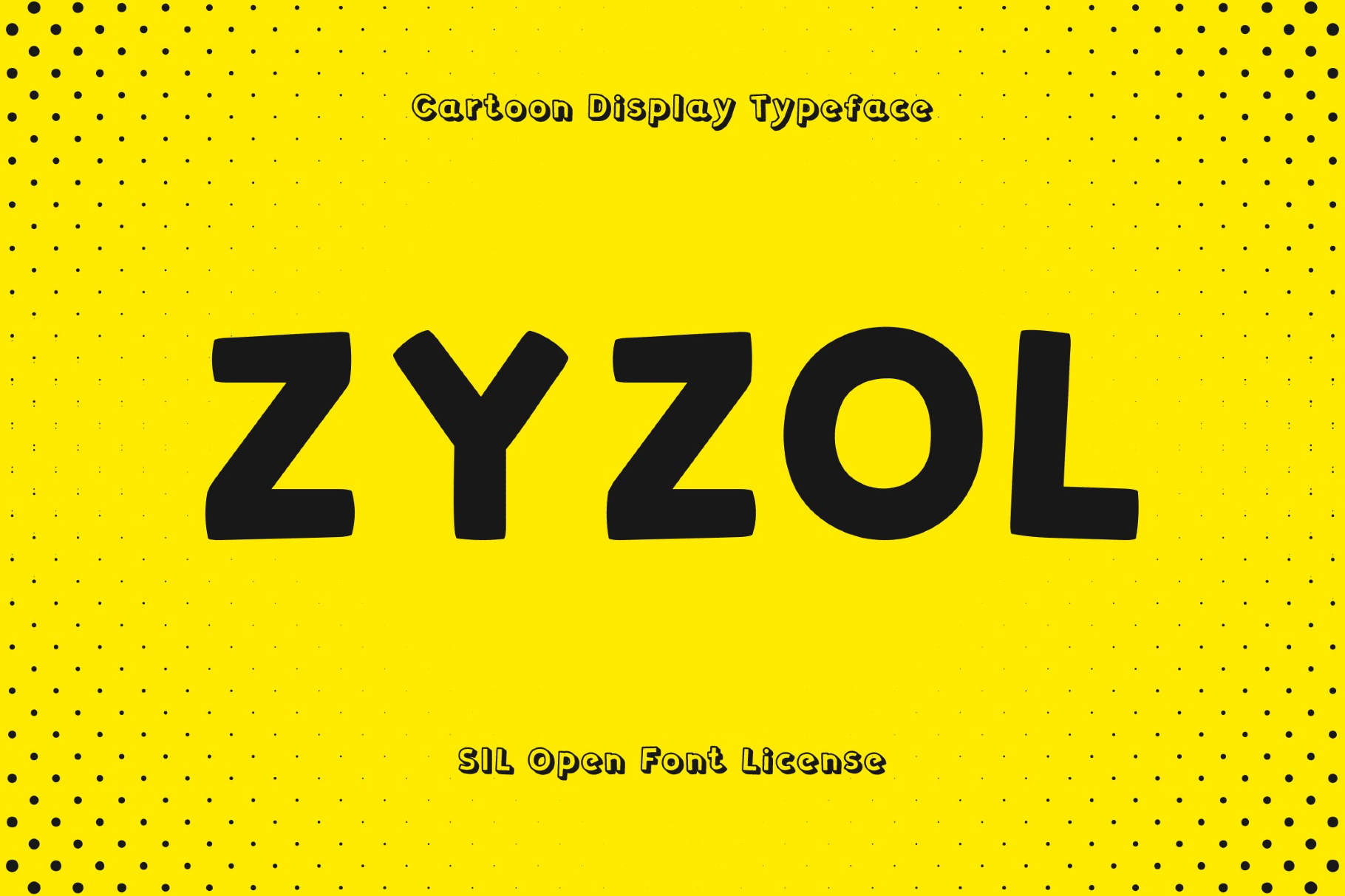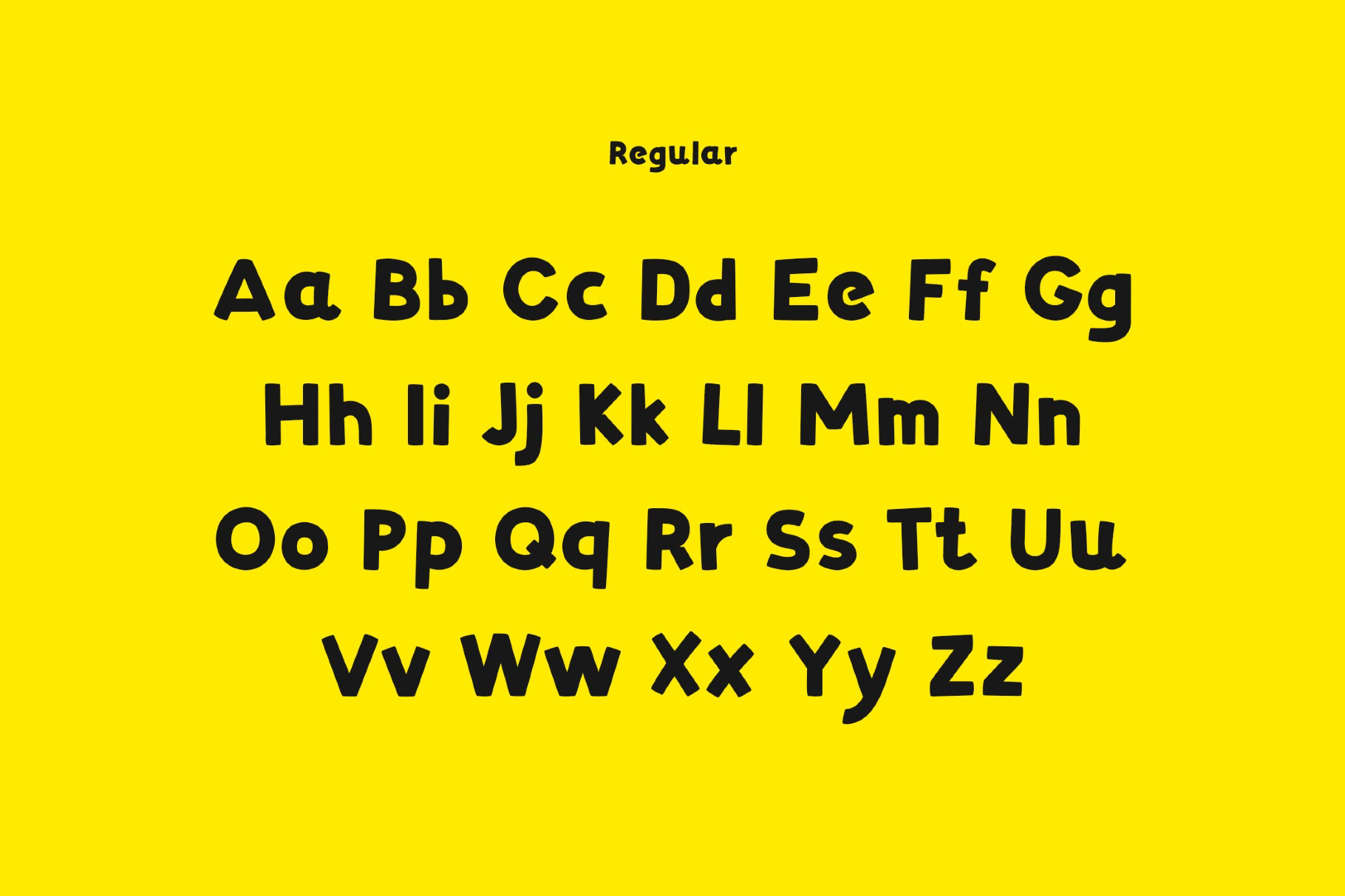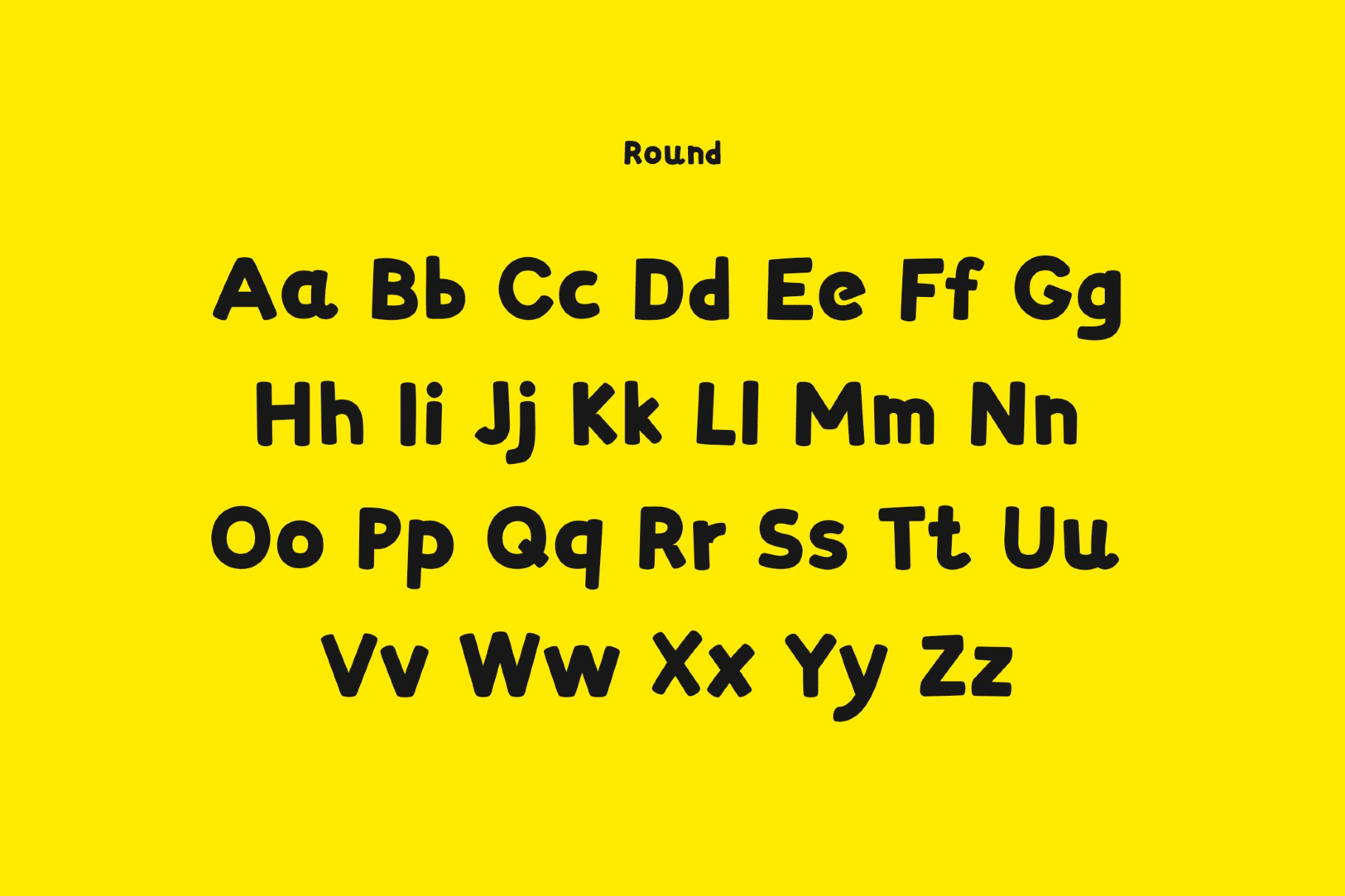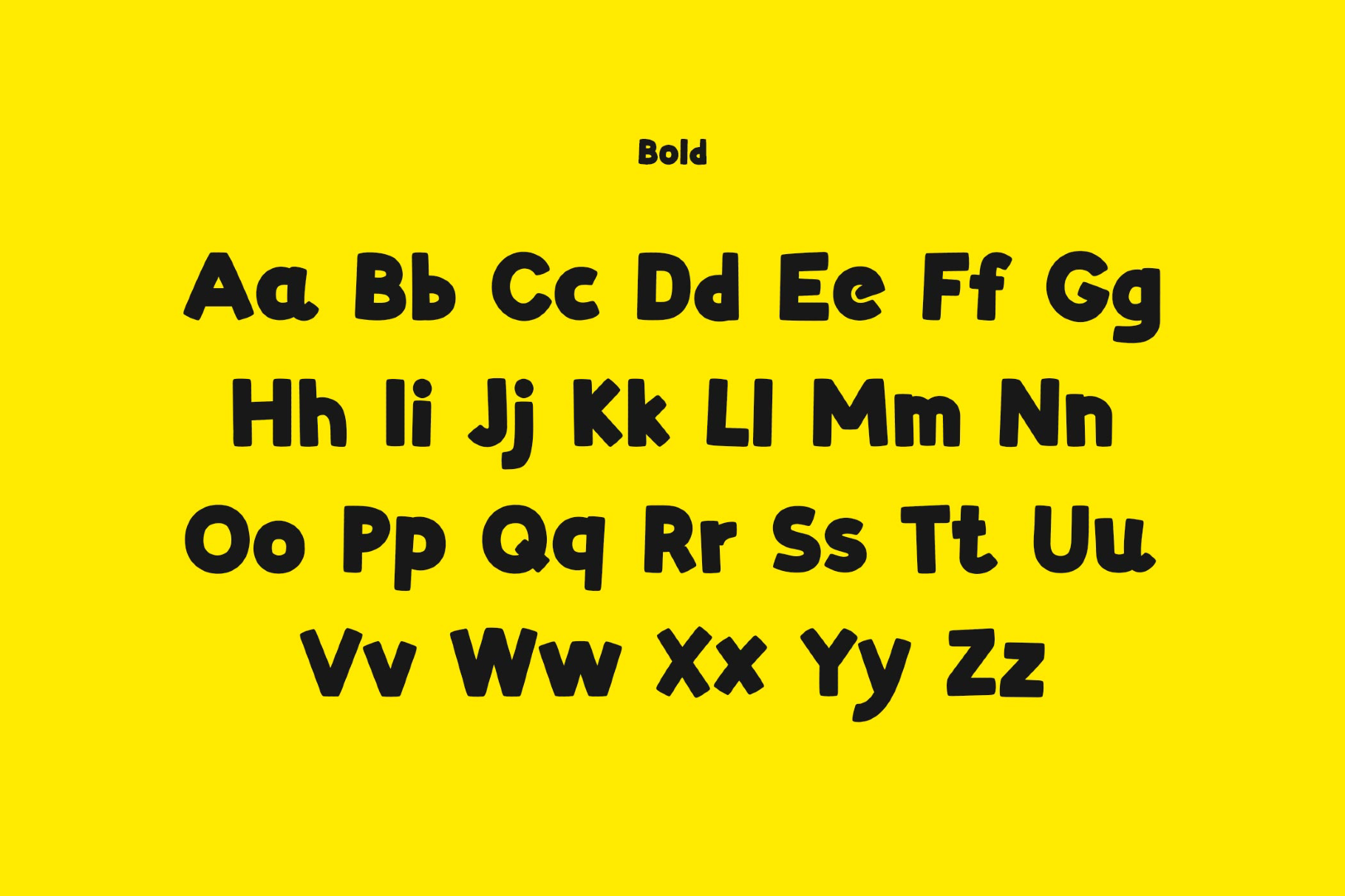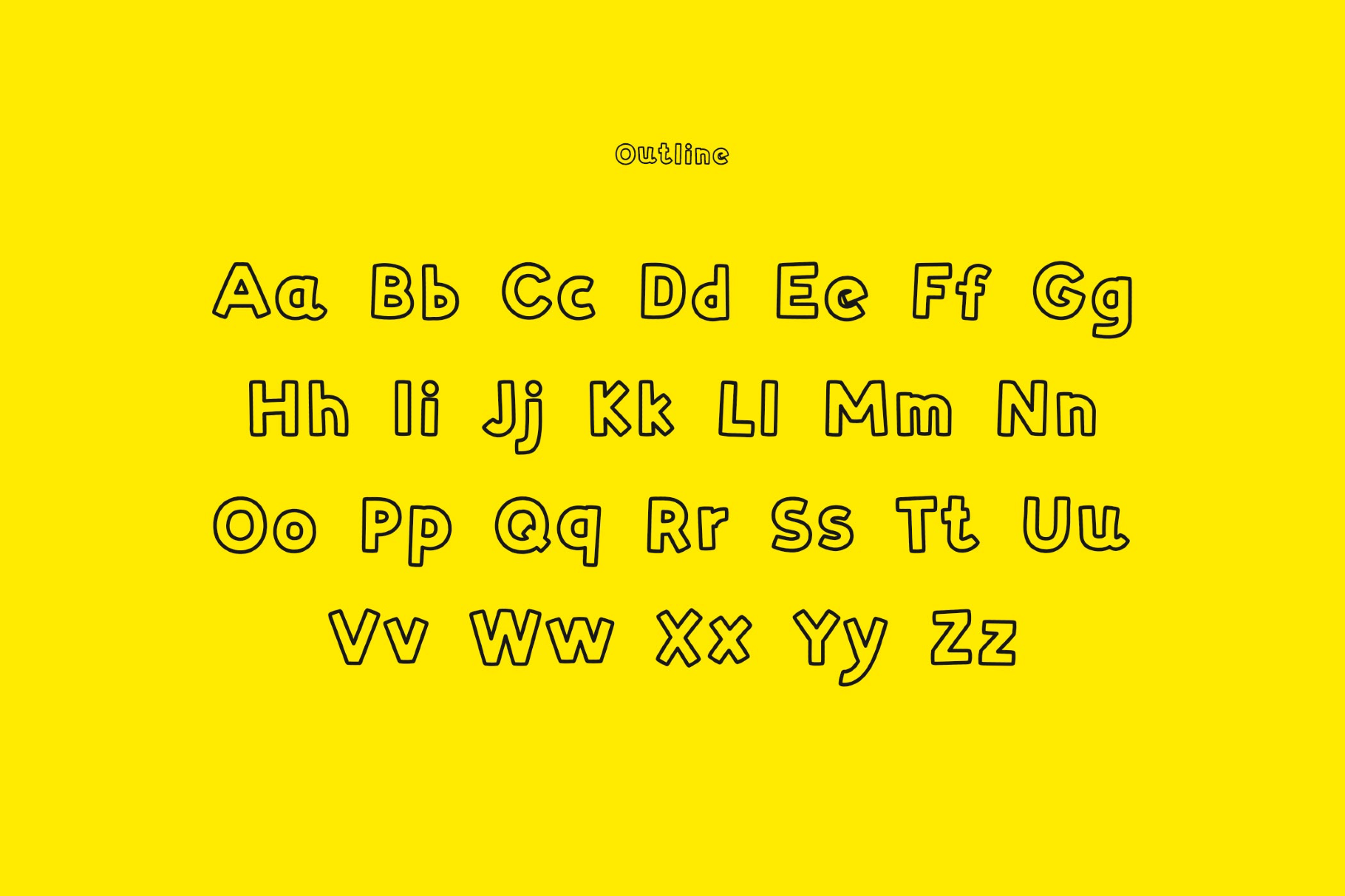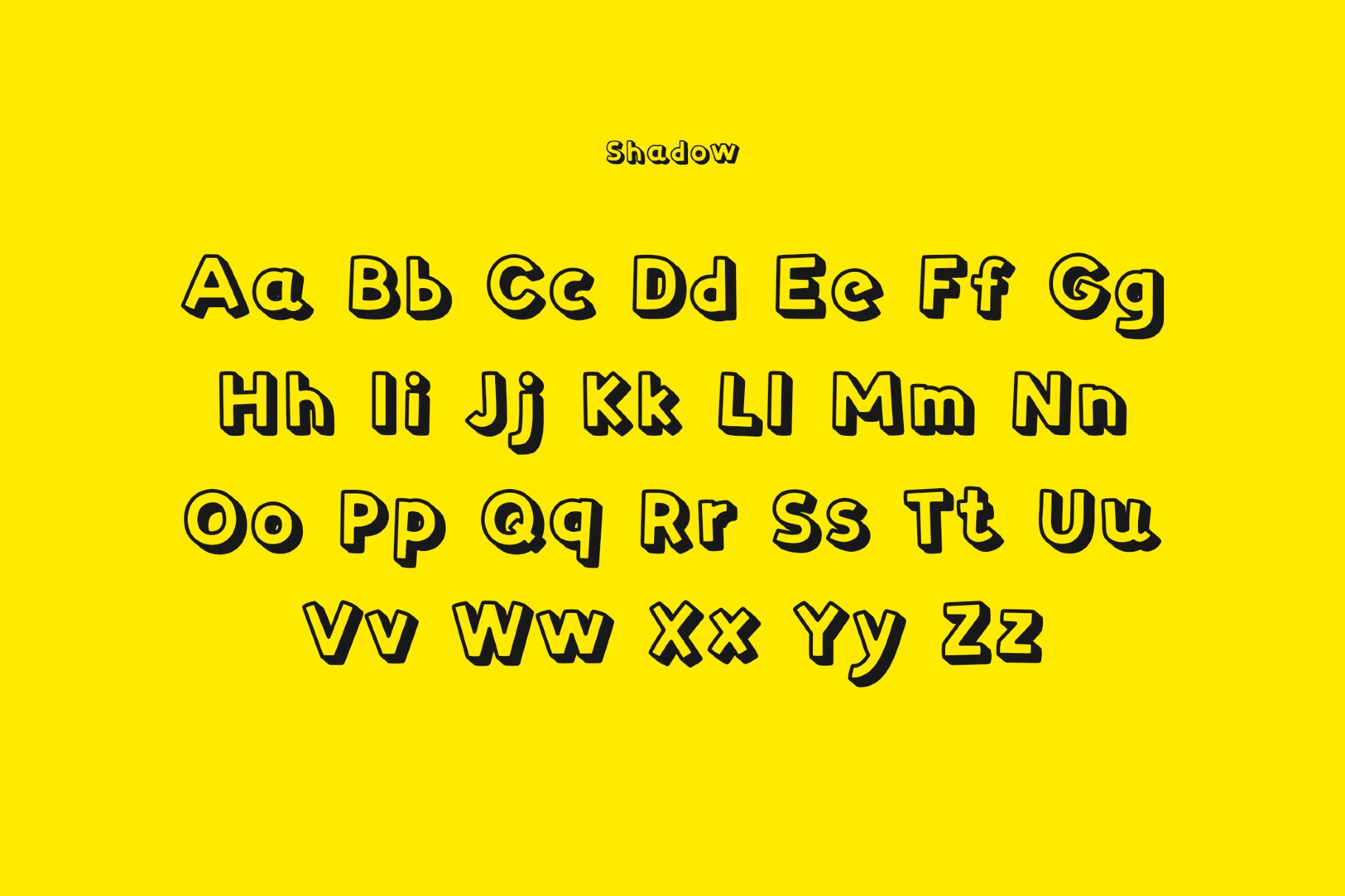
Zyzol Font
Round
Shadow
Zyzol
Zyzol is a fun summer font with rounded weight and slightly irregular contours that recall children’s comics, hand-painted shop signs, and the bright graphic humor of late-20th-century packaging art. It works well for poster headlines, snack branding, toy packaging, logo work, sticker sets, social media graphics, and editorial titles that need a cheerful accent.